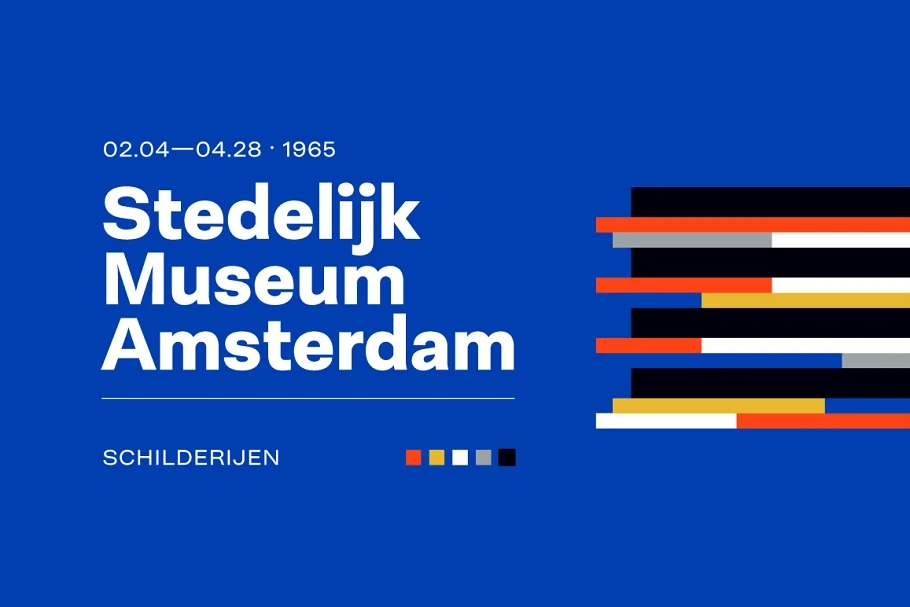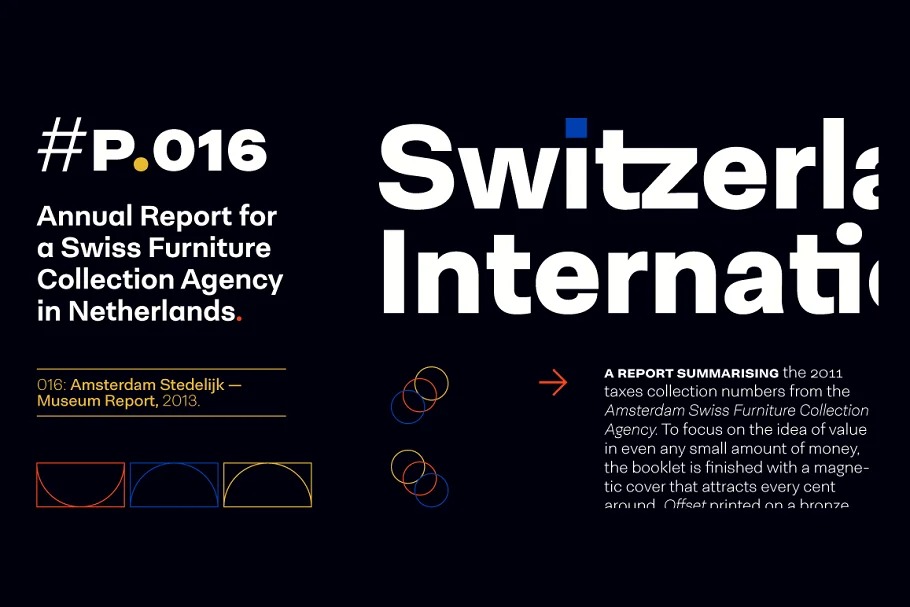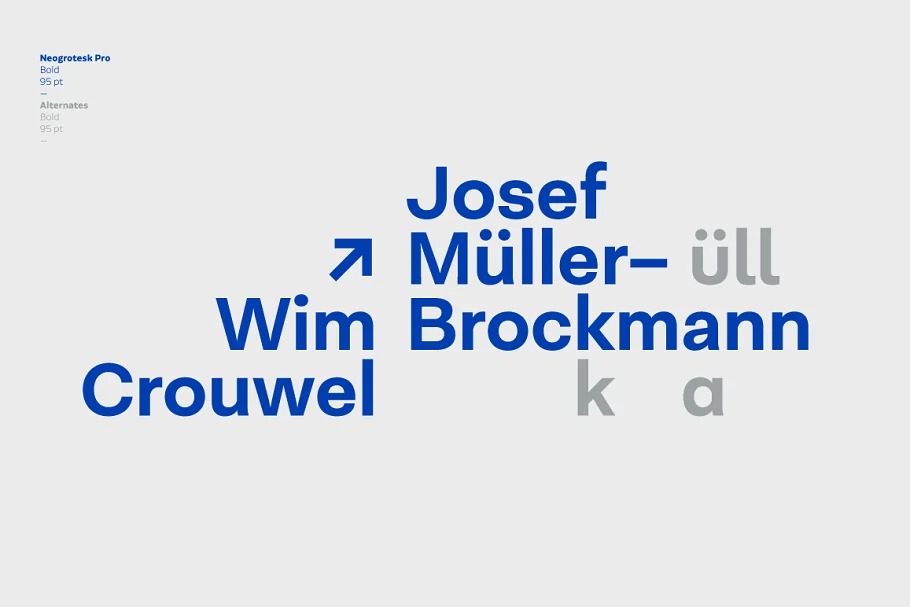
Neogrotesk Sans Serif Font
This is a geometric sans serif font family, a combination of straight lines and perfect circles and sharp edges. The font includes multiple typographic features such as alternates, ligatures, small caps, case-sensitive punctuation, arrows as well as lining, old style and tabular figures.
Neogrotesk is the perfect choice for editorial, corporate and advertising design. This 40-style type comes in 5 weights with matching italics and contains 770 glyphs. The complete set consists of 4 sub-families: Essential, Essential Alt, Pro and Small Caps.